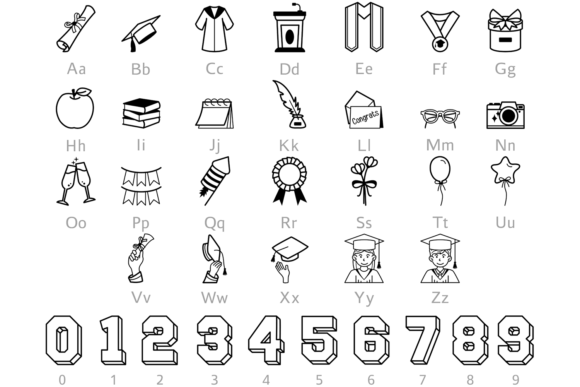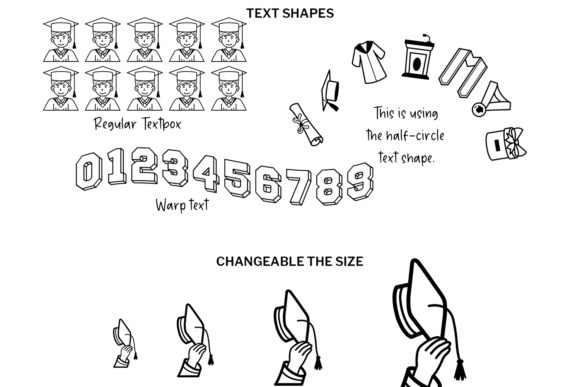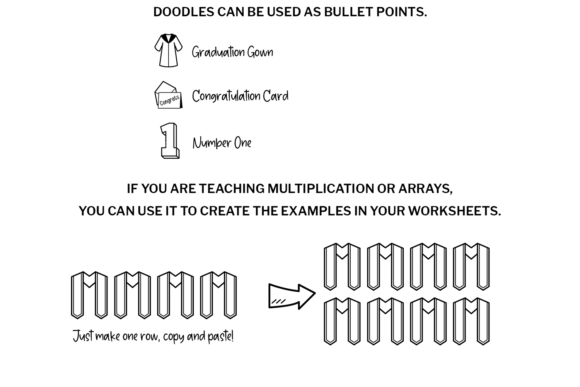
Graduation Doodle Font
Graduation Doodle is a fun and cute dingbats font. Its versatility makes it great for a School Grad, planners, and diaries, and Great for crafters and graphic artists alike. Compatible with tools such as Photoshop or Illustrator. or anything your heart desires!